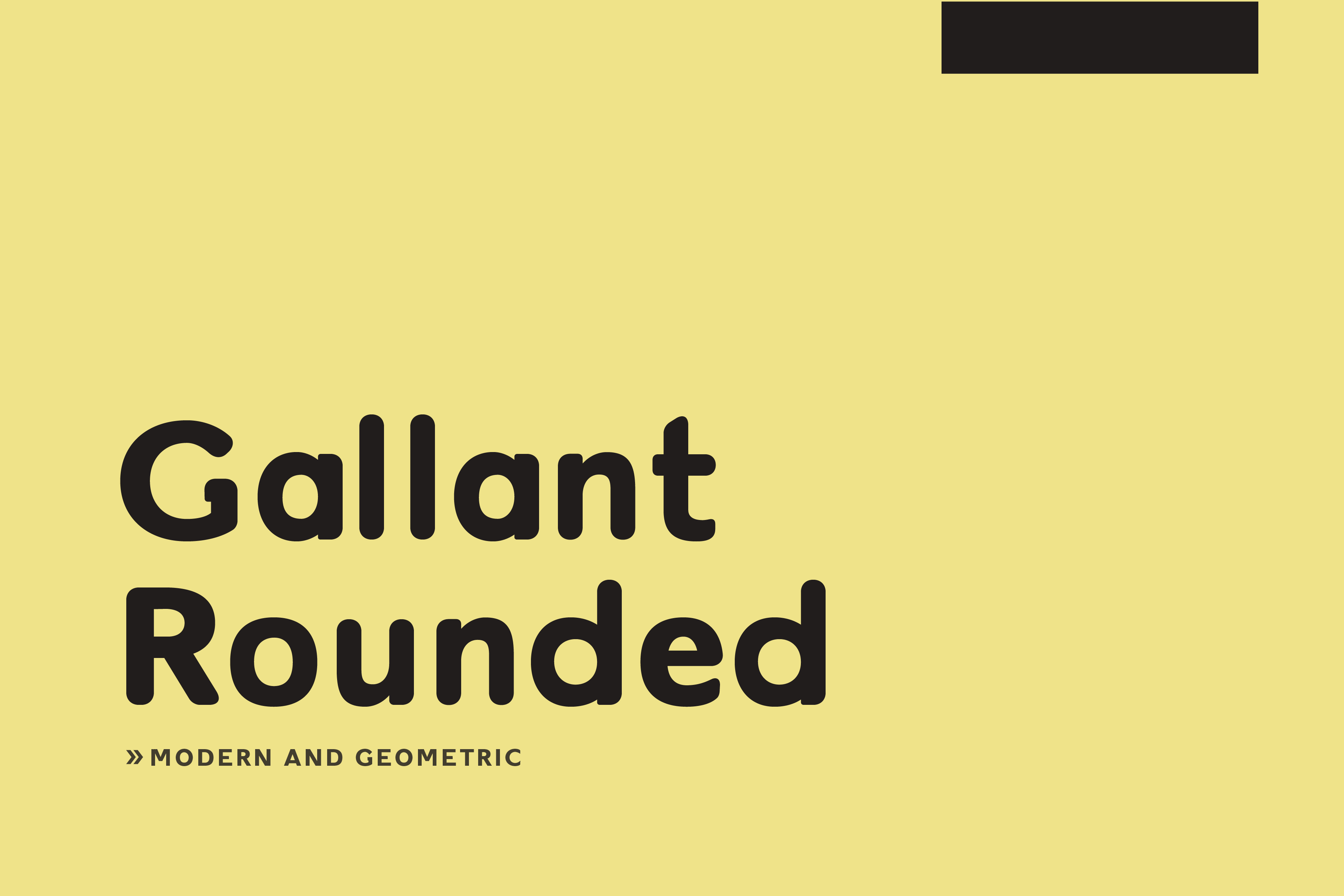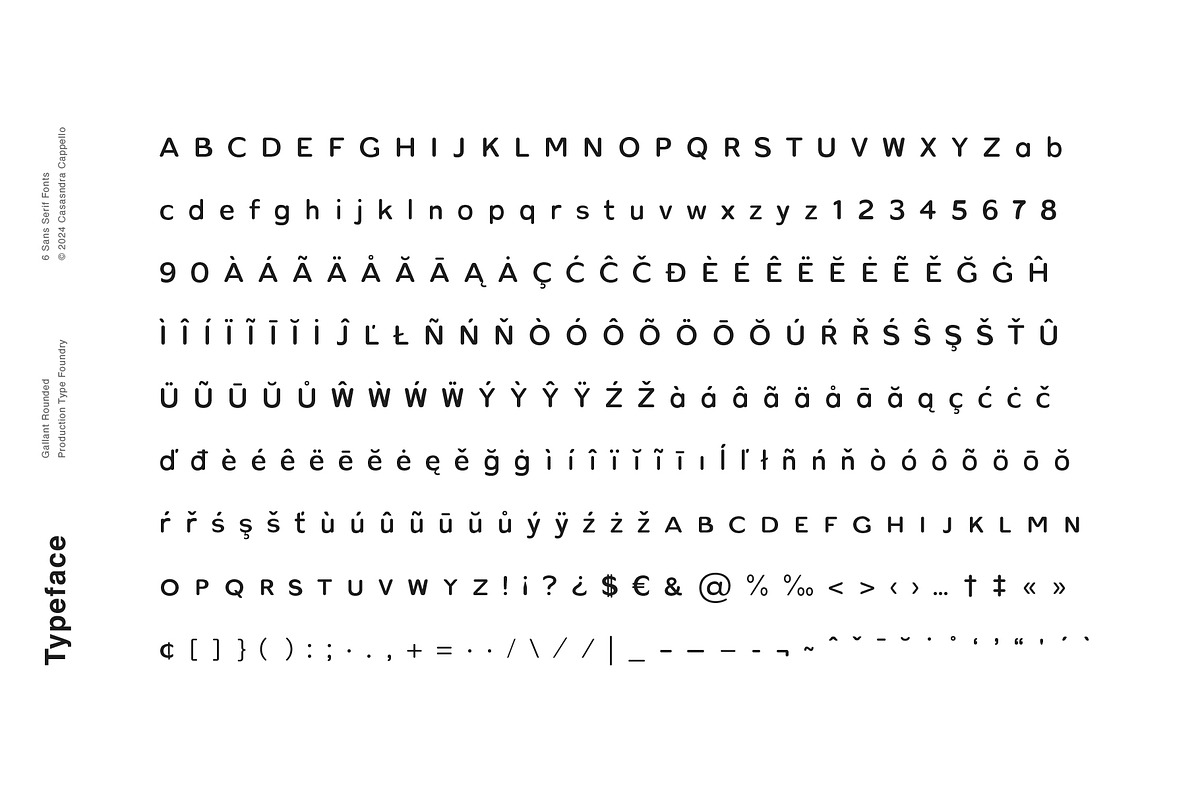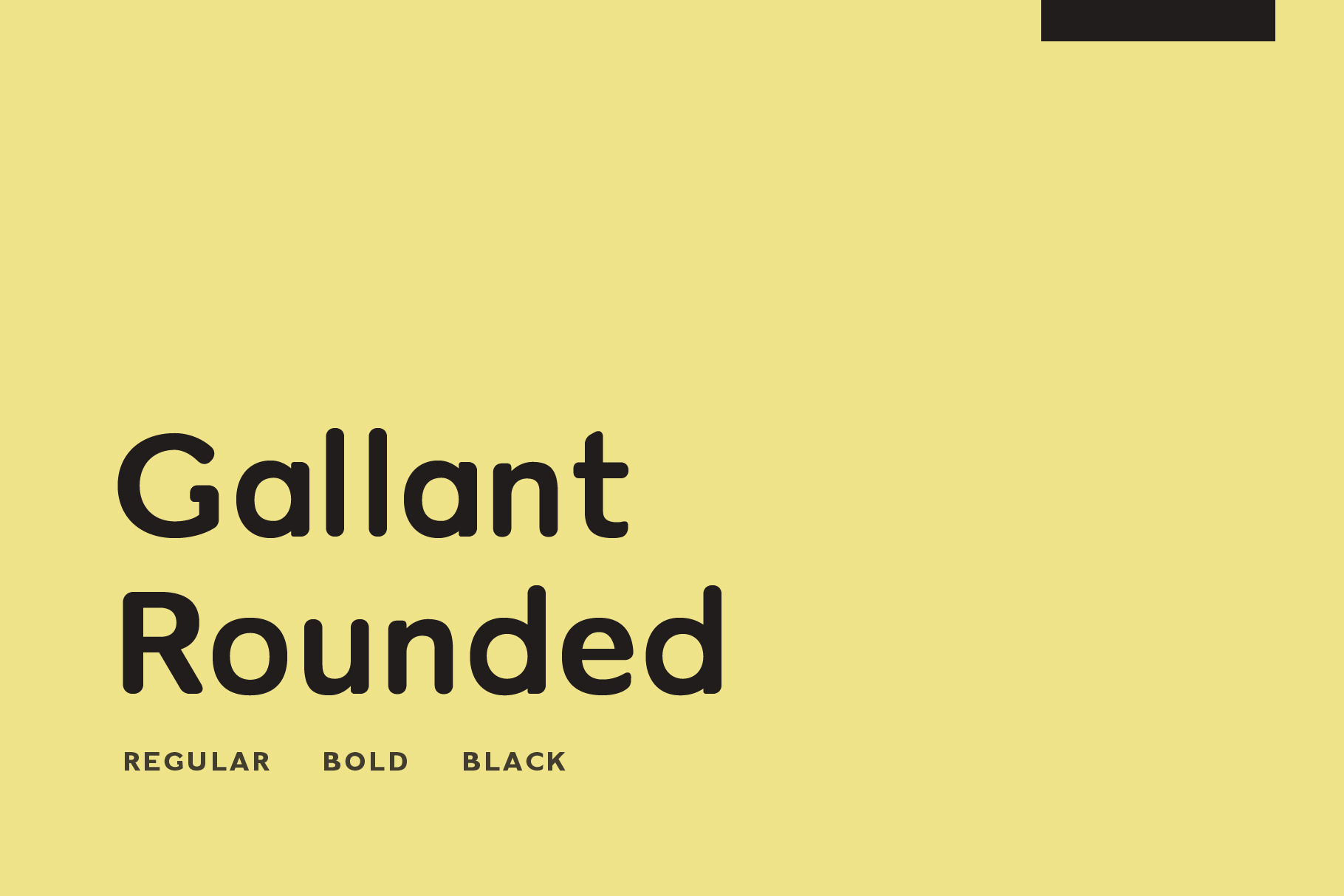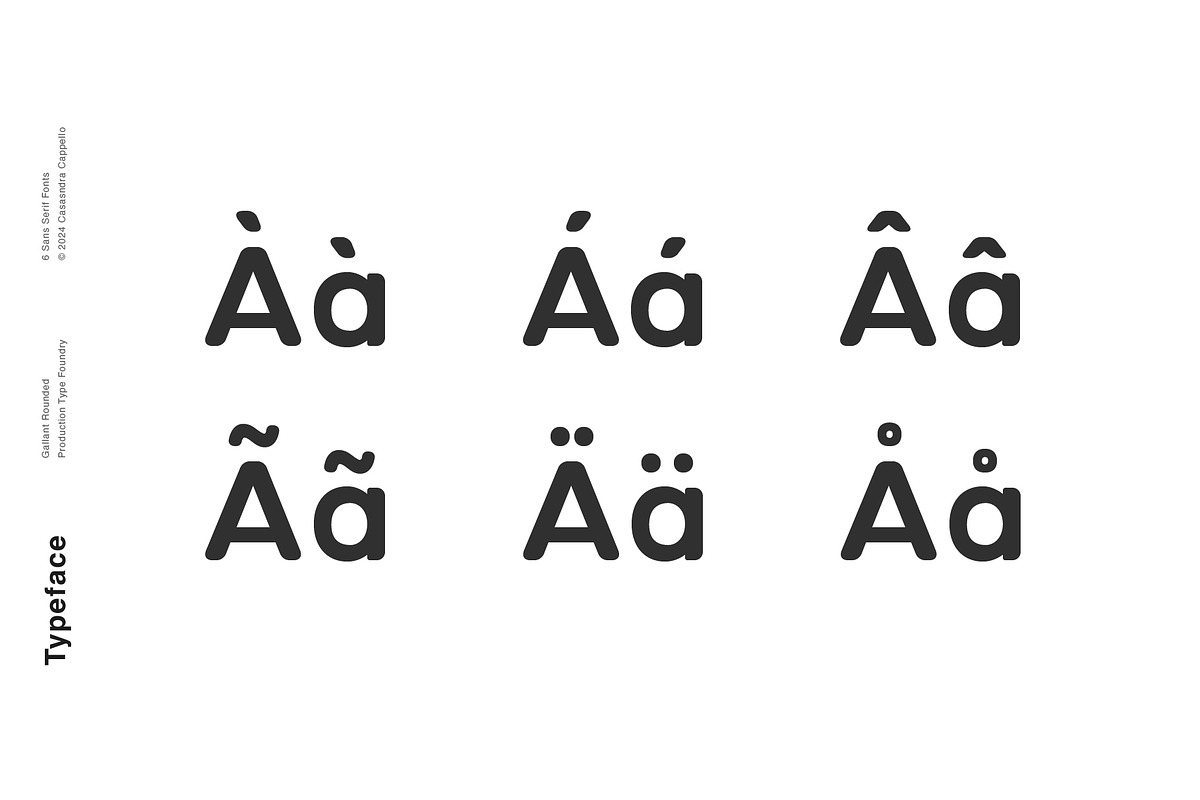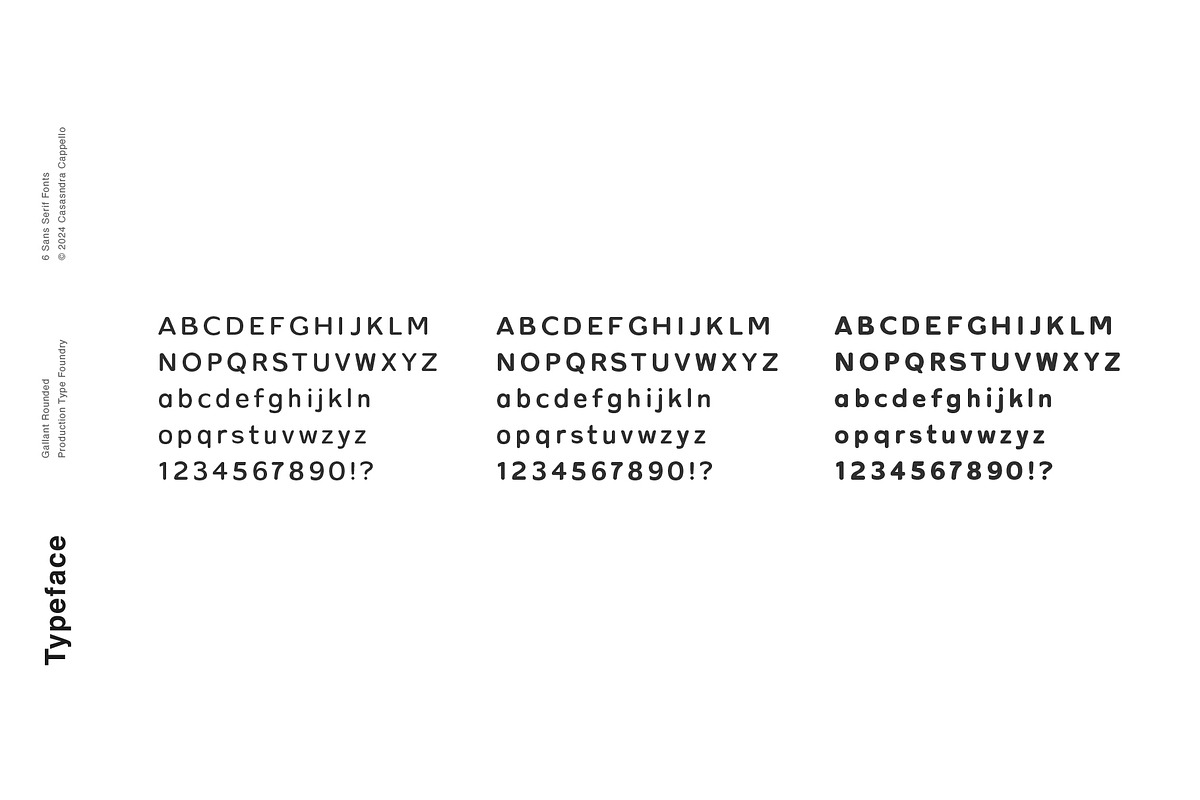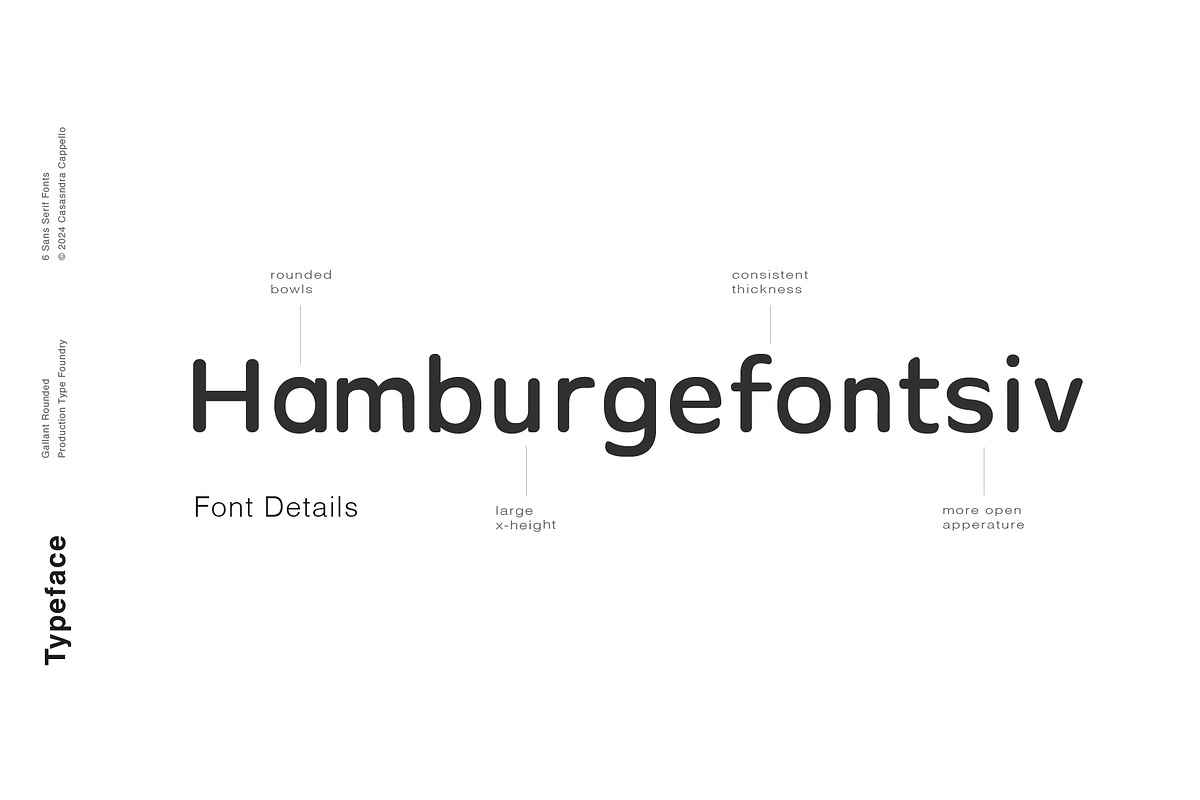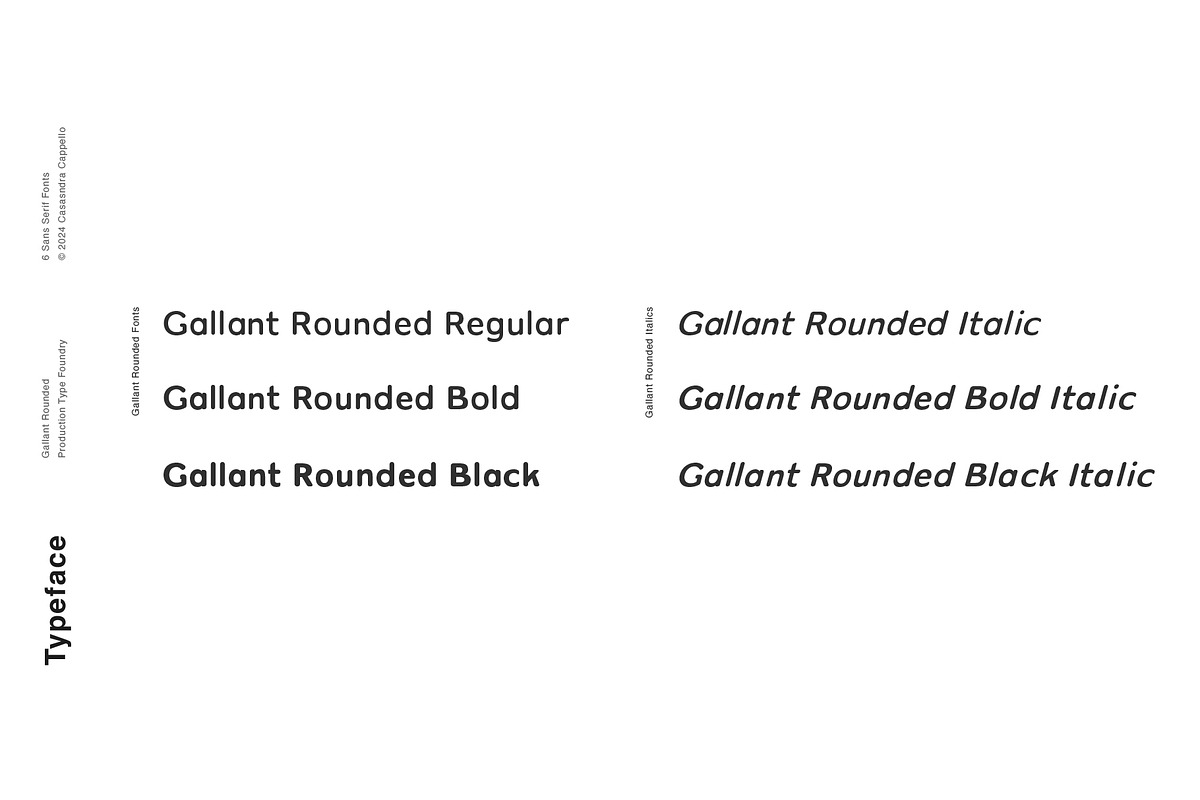
Gallant Rounded - Geometric Typeface
Gallant Rounded is a modern, geometric, sans serif typeface. It has a little bit of personality and can be used for both headers and body copy. This font family includes all Latin characters (including accents), numbers, special characters, and punctuation.
Gallant Rounded includes six fonts in OTF format: Three weights and three italics.